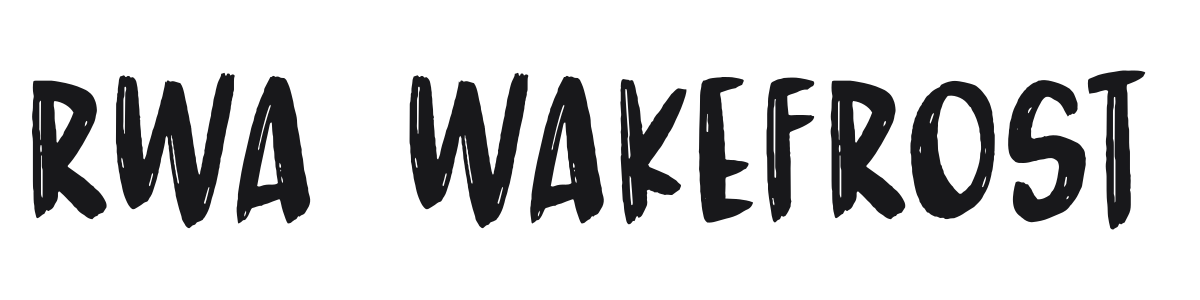
RWA Wakefrost
RWA Wakefrost is a bold hand-painted brush font with chunky, ink-textured strokes and an upright casual energy. The bristle marks and irregular edges give it an authentically handmade quality that keeps it from looking mechanical. Works well for logos, poster headlines, and packaging where a raw, confident handcraft aesthetic is the goal.